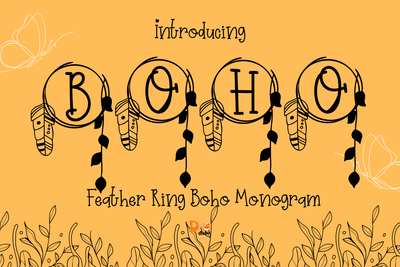
Feather Ring Boho Monogram
Feather Ring Boho Monogram – Hand-Drawn Serif Monogram Font with Feather Wreath Accents
Feather Ring Boho Monogram is an enchanting serif monogram font featuring elegant uppercase letters encircled by hand-drawn feather wreaths. With a dreamy, bohemian vibe and organic flow, this font is perfect for wedding branding, personalized gifts, Cricut crafts, and anything that needs a touch of rustic elegance.
Feather Wreath Accents: Each character is framed in a soft, circular feather ring for a free-spirited and elegant look.
Timeless Serif Style: A refined serif core ensures readability and visual balance.
Boho-Inspired Design: Blends natural elements with graceful monogram structure.